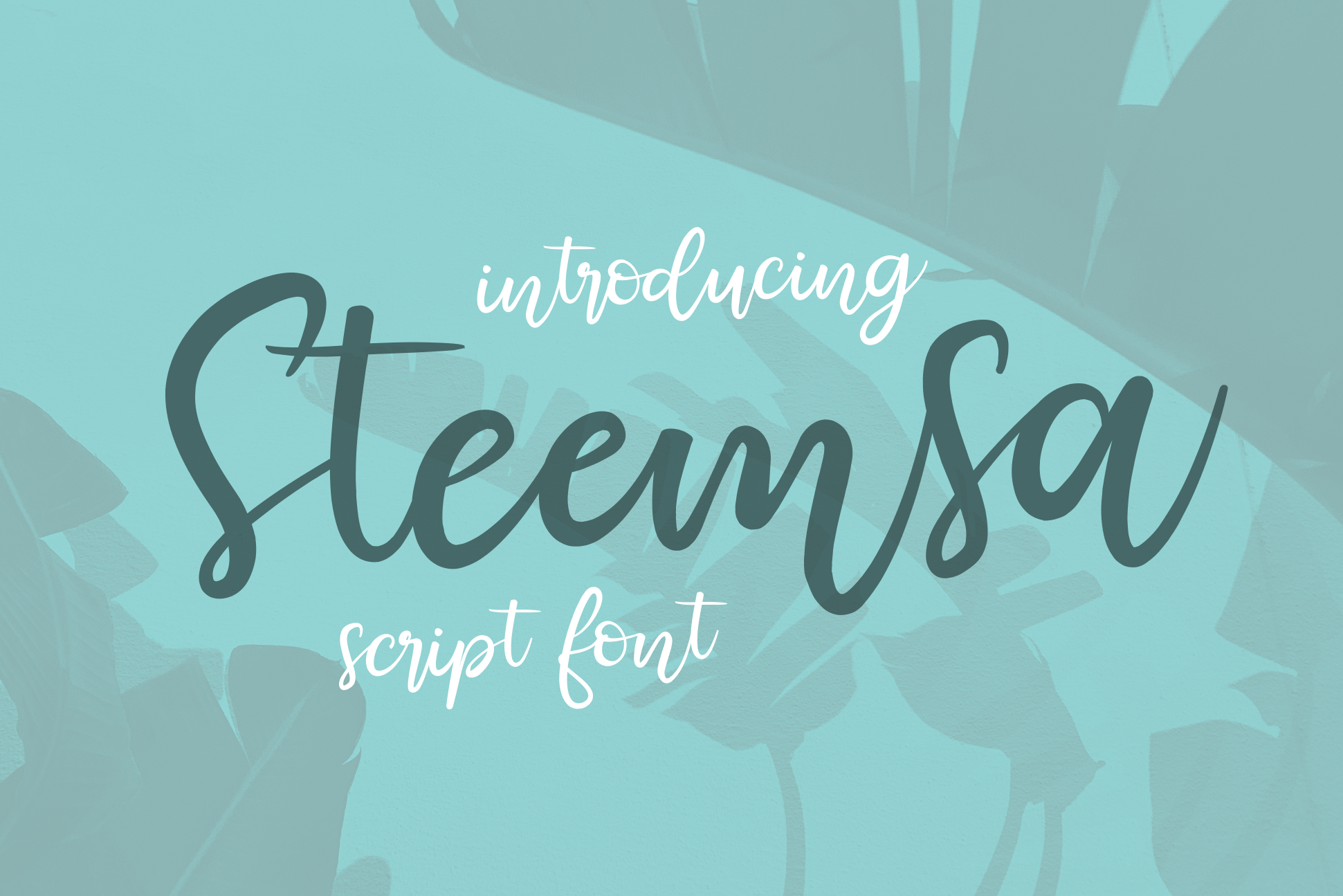
Steemsa | Funny Script Font
Steemsa is a clean, bouncy, beautiful font, simple and funny. it can be incorporated into many designs including quotes text, wedding invitations, posters and you can create custom cards to give to your friends and family.